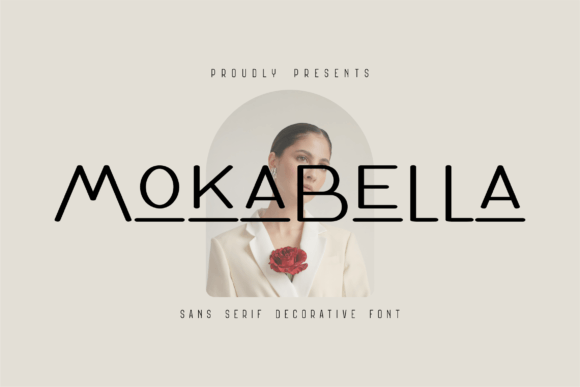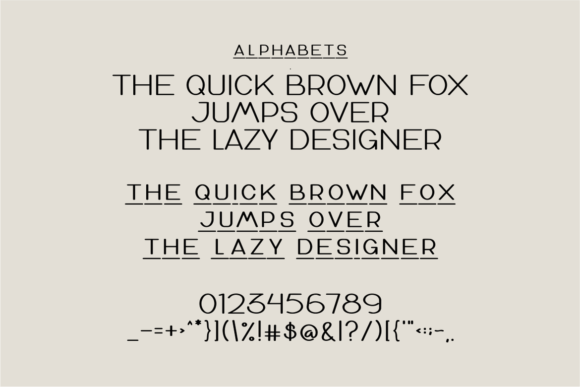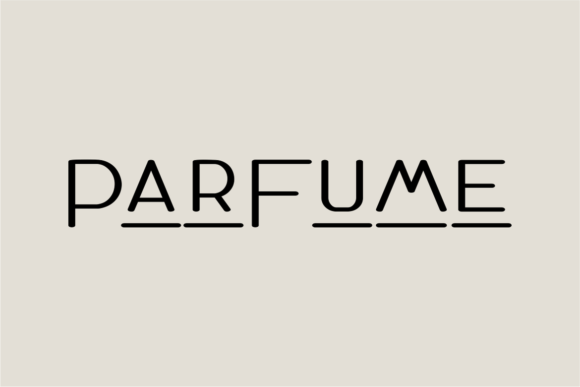
Mokabella Font: Elegant Sans Serif for Modern Logo Design & Branding
About the Mokabella Font
Elevate your designs with Mokabella Font, a font that combines sophistication with readability. MokaBeLLa is an elegant, classy, and modern sans serif font. It’s a great font for fashion, apparel projects, signatures, album covers, logos, branding, magazines, social media, and advertisements, but also works great for other projects.
Mokabella’s elegant, modern feel makes it ideal for headlines, short text blocks in branding materials, and sophisticated logos. It also excels in packaging design for high-end products and fashion-related projects. However, its delicate letterforms are less suitable for body text or UI elements requiring high readability in smaller sizes. Extended use in long paragraphs would prove challenging.
The font’s inherent sophistication is best complemented by pairings such as a clean, geometric sans-serif for a contemporary feel or a classic serif like Garamond for a touch of timeless elegance. A playful script font could add a contrasting yet harmonious element, depending on the project’s needs.
Mokabella projects a refined, yet approachable personality; it’s confident without being aggressive, modern without feeling cold. Brands seeking to convey luxury, style, and a sense of refined minimalism will find it particularly effective.